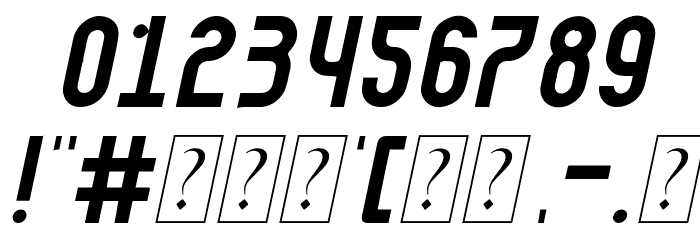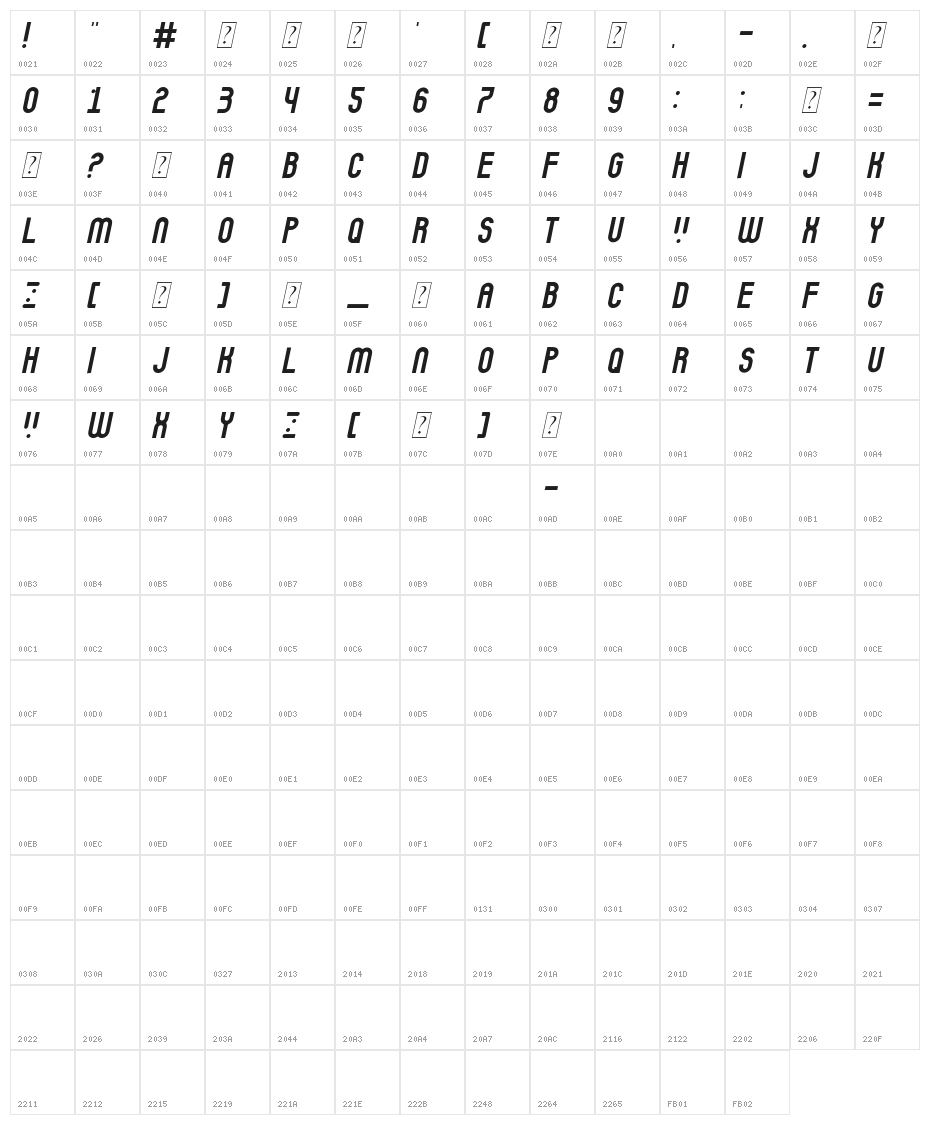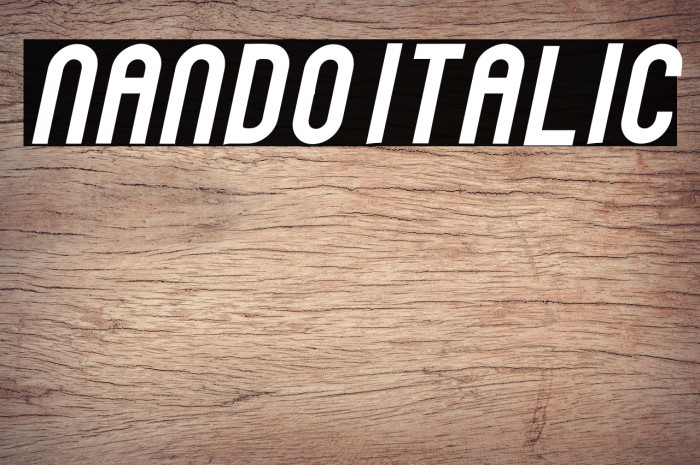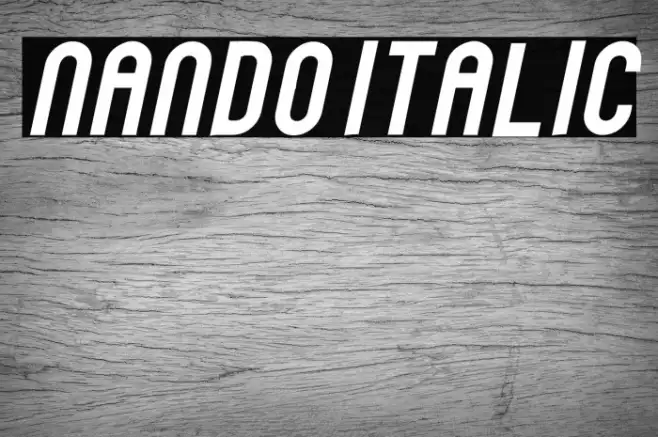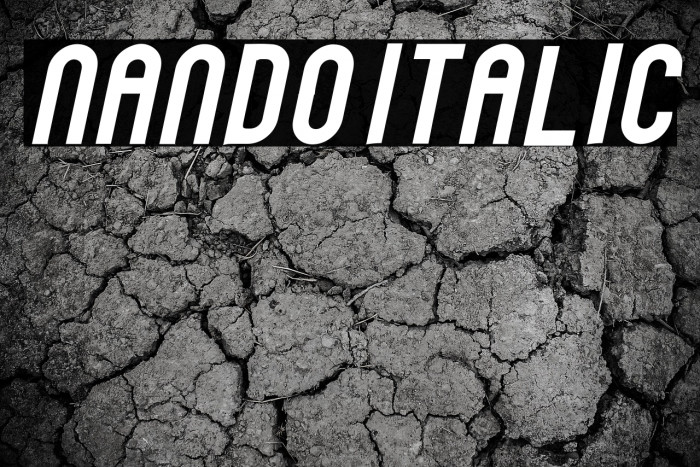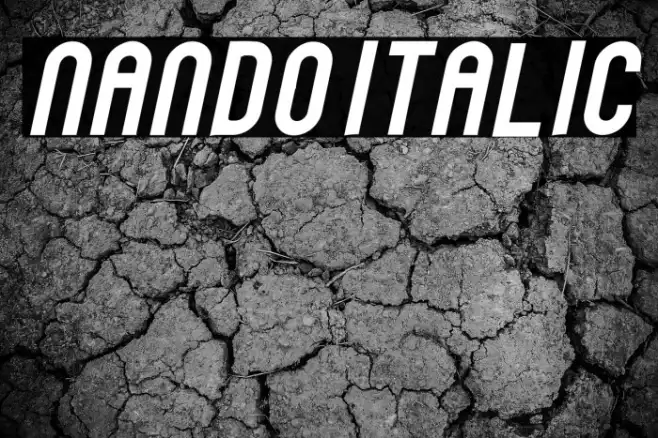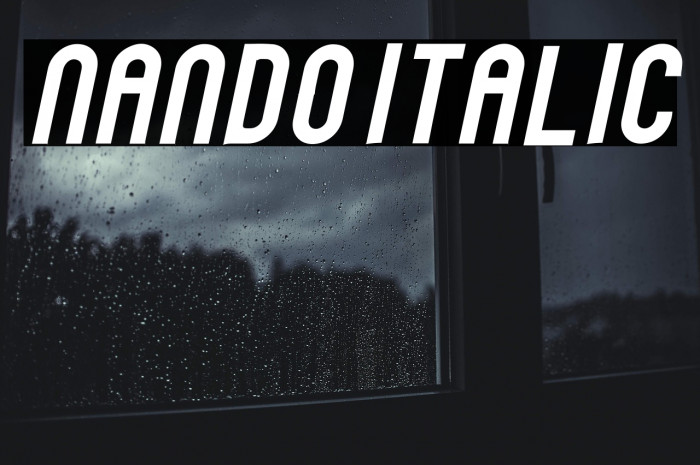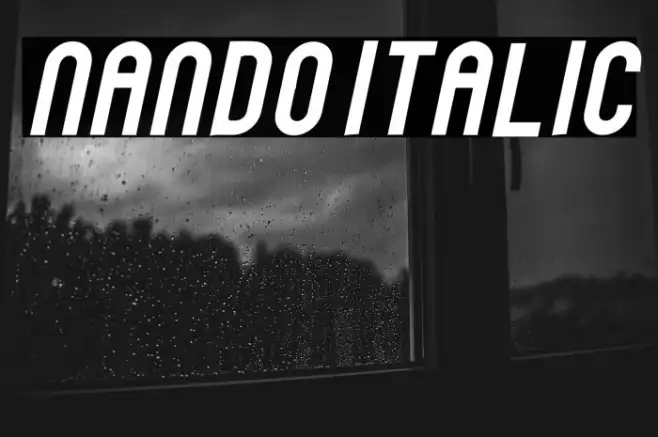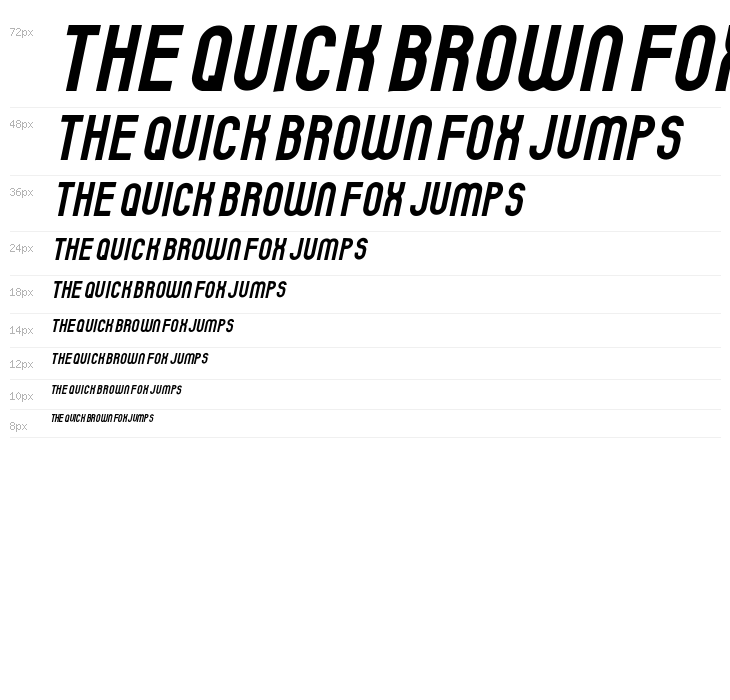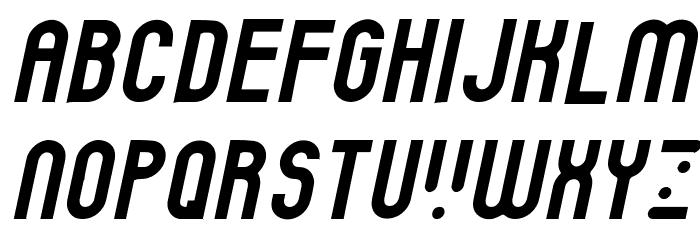
Nando Italic Font
Nando Italic Description
This font features a bold and dynamic style with a distinct italic slant, giving it a sense of movement and energy. The characters are sans-serif, with smooth curves and a modern aesthetic. The uppercase and lowercase letters maintain a consistent design, ensuring readability while adding a unique flair. The numbers are clear and bold, matching the overall style of the alphabet. Special characters are included, maintaining the same bold and italicized characteristics. The font's design is suitable for making a strong visual impact.